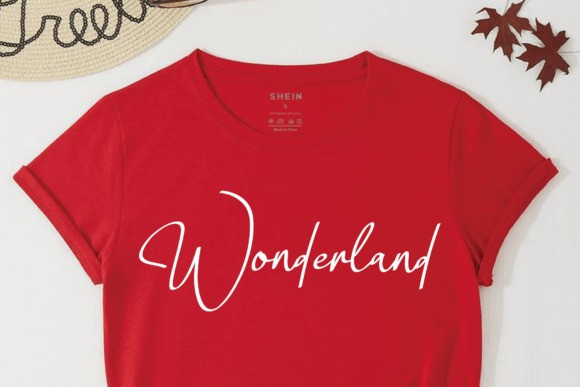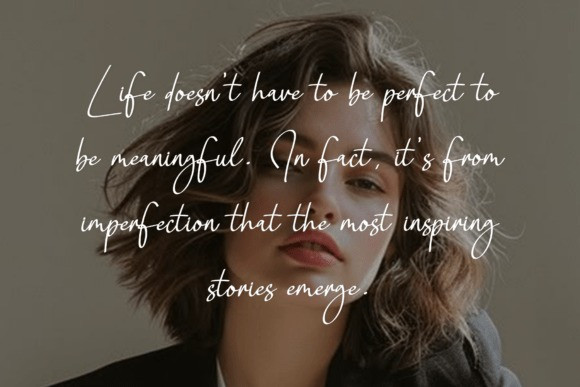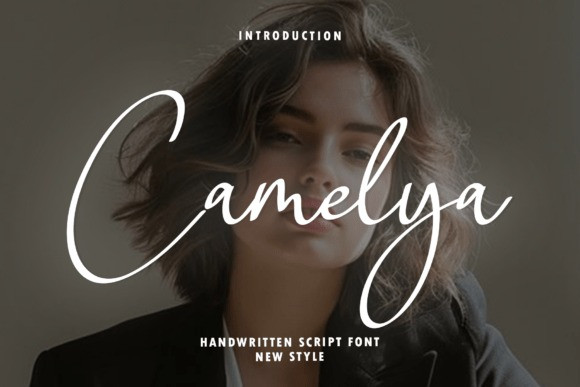
Camelya Handwritten Font
Camelya Handwritten Font is a sophisticated and fluid script font designed to bring a graceful, hand-penned touch to contemporary creative projects. This new handwritten font features vertically elongated letterforms rendered with a fine, monolinear stroke weight and smooth character joins. This font is an exceptional choice for boutique brand identities, personal signature watermarks, elegant lifestyle marketing, and professional social media headers.